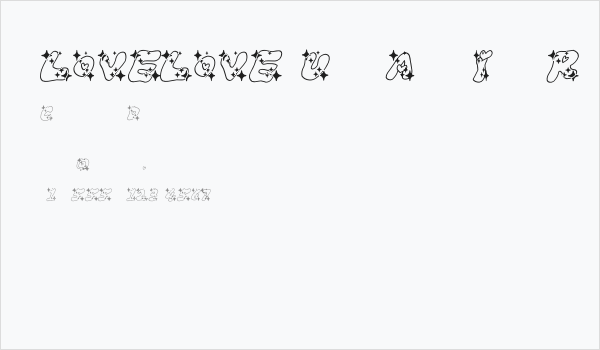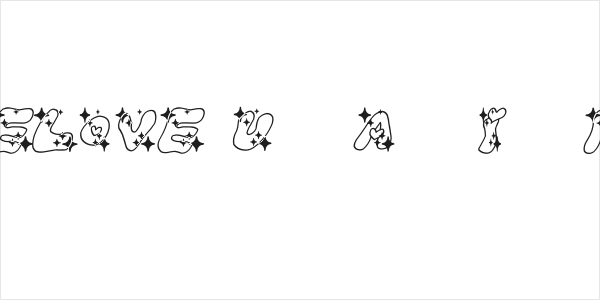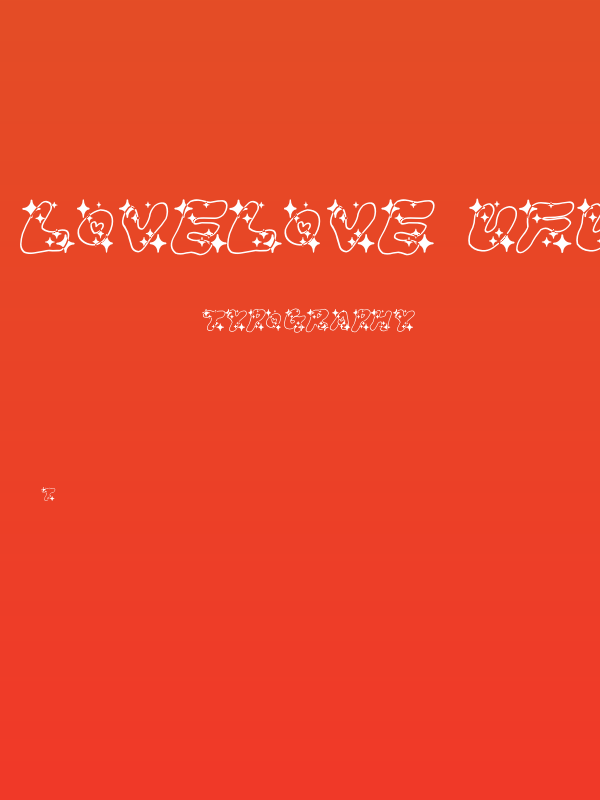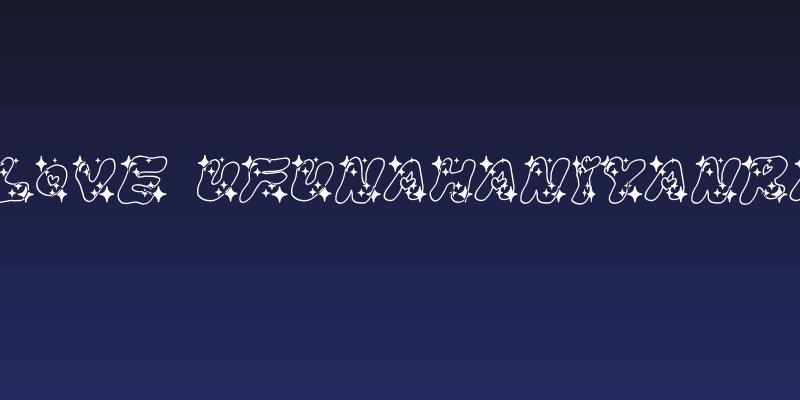
LOVELOVE_UfunAhanIyanRamee Font
LOVELOVE_UfunAhanIyanRamee Description
This font is a whimsical and decorative typeface that features playful star and heart embellishments within each character. The letters are bold and rounded, with a bubbly appearance that adds a sense of fun and creativity. The stars and hearts are integrated into the strokes, creating a lively and dynamic look. This font is perfect for projects that require a touch of magic and joy, such as children's books, party invitations, or playful branding. Its unique style makes it stand out, capturing attention with its charming and imaginative design.
| Proposed Projects | Ideal for children's books, party invitations, and playful branding. |